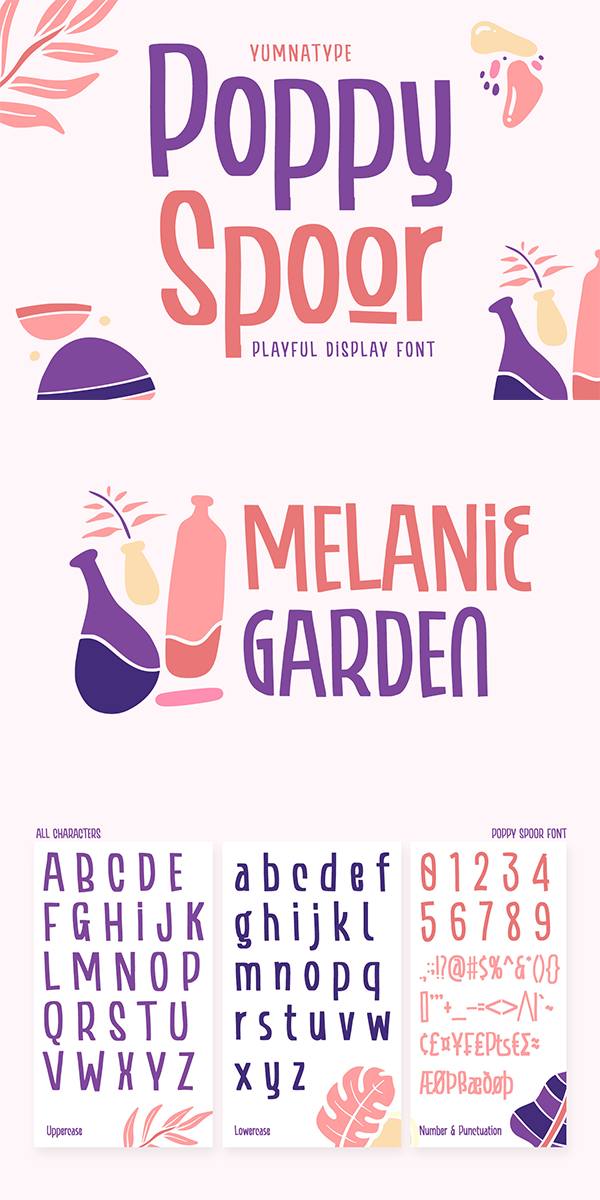
Poppy Spoor Font
About Poppy Spoor
Poppy Spoor, unlike the other display fonts, is a display font with rather square letters to show you fun, soft, modern impressions due to the thin line designs in low contrasts. This font type, giving you a clipart as a bonus, is legible and is better applied for big text sizes. You can maximize your designs with Poppy Spoor’s features to remain the best in every design at any time.
Alternates
Poopy Spoor fits best for various design projects, such as brandings, posters, banners, headings, magazine covers, quotes, invitations, name cards, printed products, merchandise, social media, etc. Find out more ways to use this font by taking a look at the font preview.